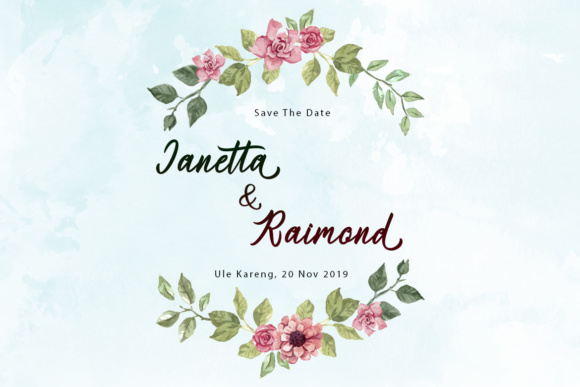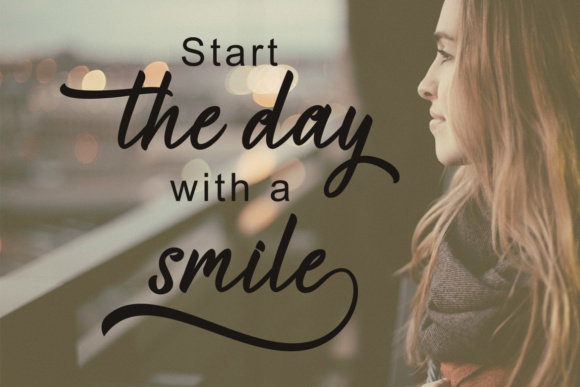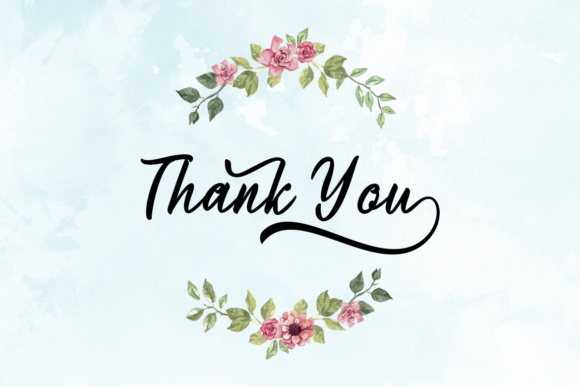
Introduction to Catherine Script Font
The Catherine is an elegant script font.
Key Features of Catherine Script Font
Why Choose Catherine Script Font?
Catherine Script Font offers exceptional quality and versatility, making it a valuable addition to your design toolkit. Whether you’re creating for personal projects or commercial use, Catherine Script Font delivers professional results.